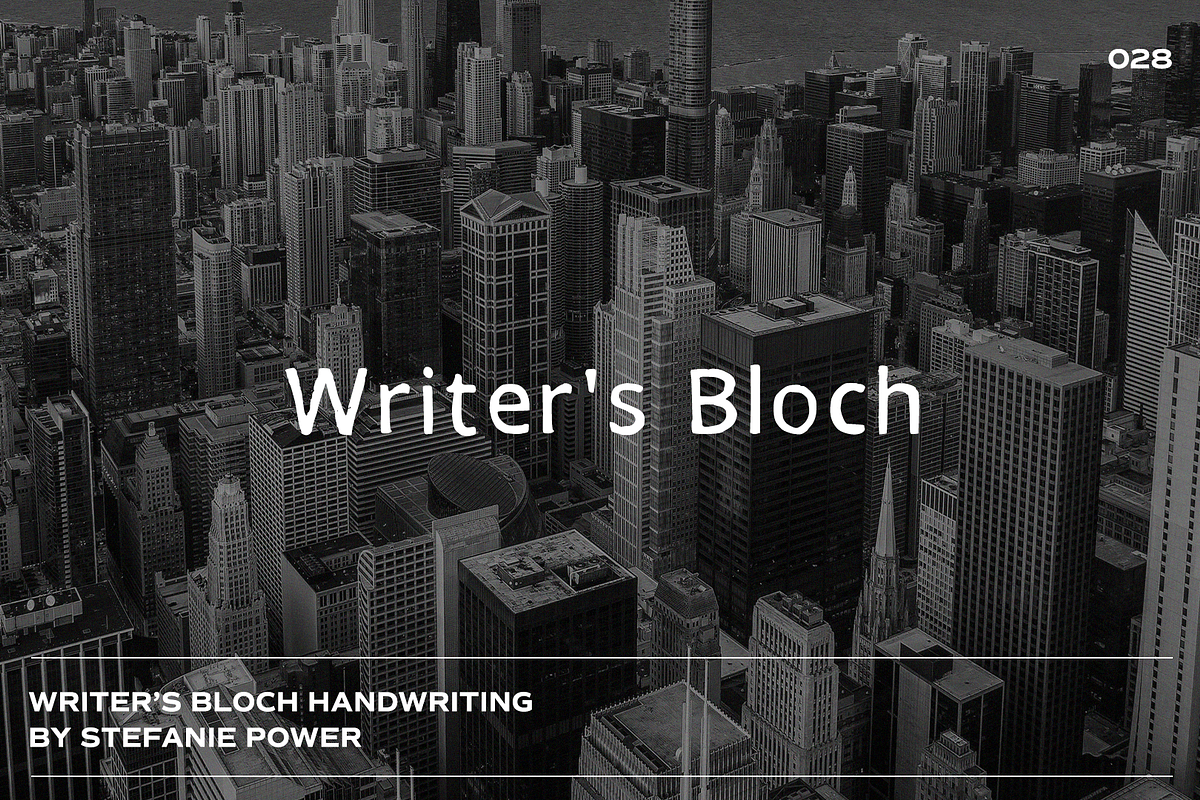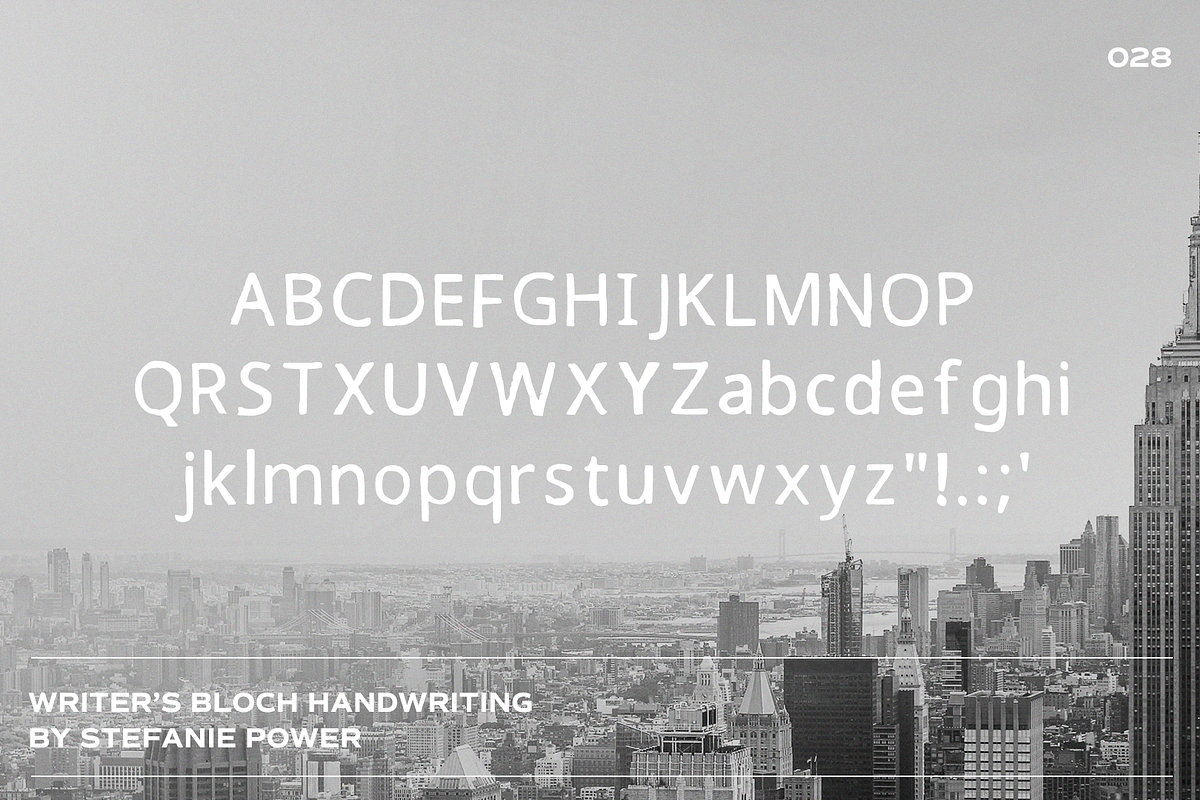
Writer's Bloch Handwriting | Font
Introducing 'Writer's Bloch' - a bold and scratchy font.
Writer's Bloch • A handwritten script font containing upper & lowercase characters and a range of punctuation and numbers.